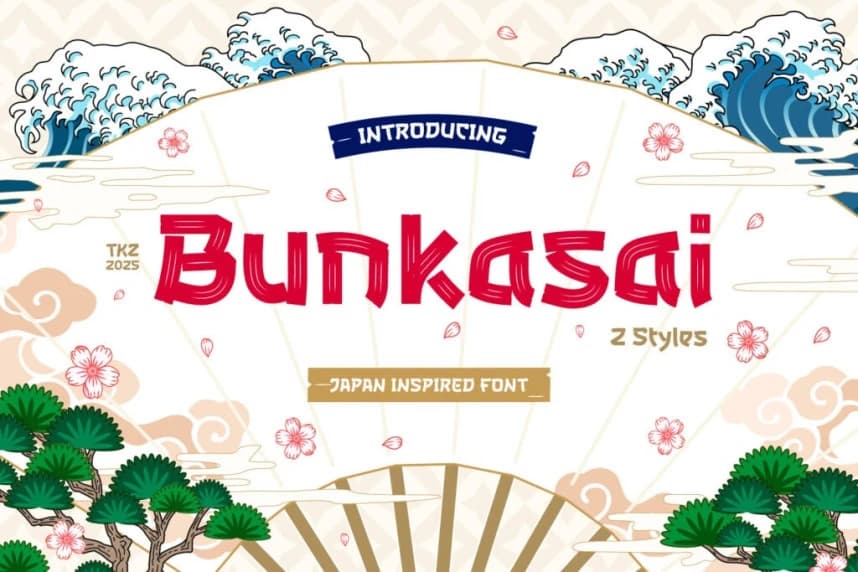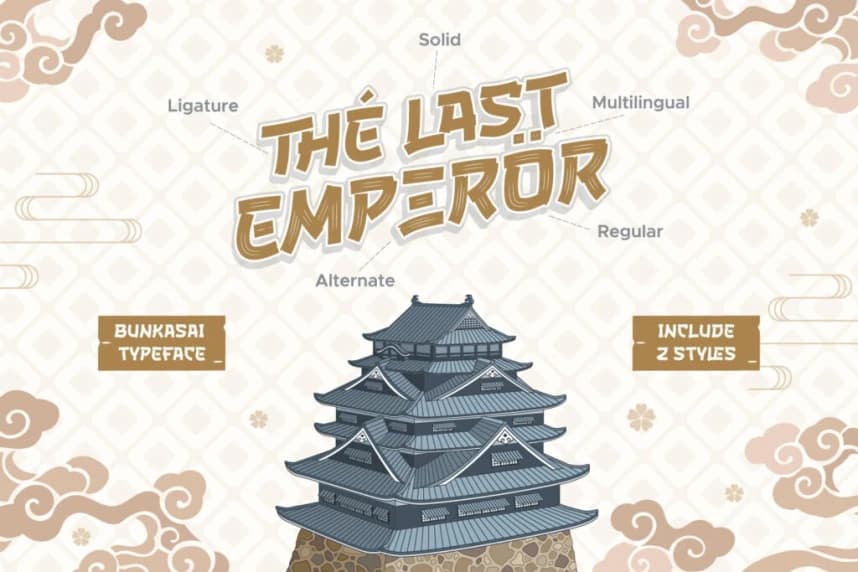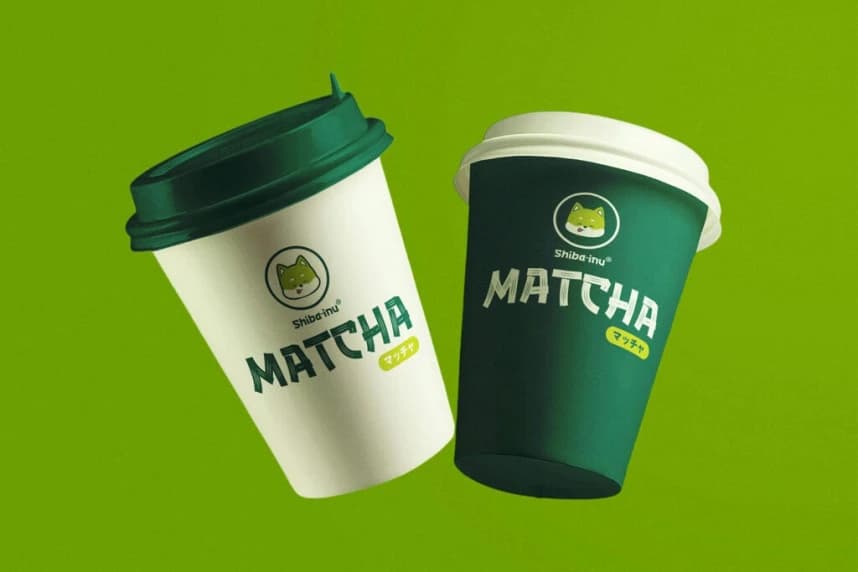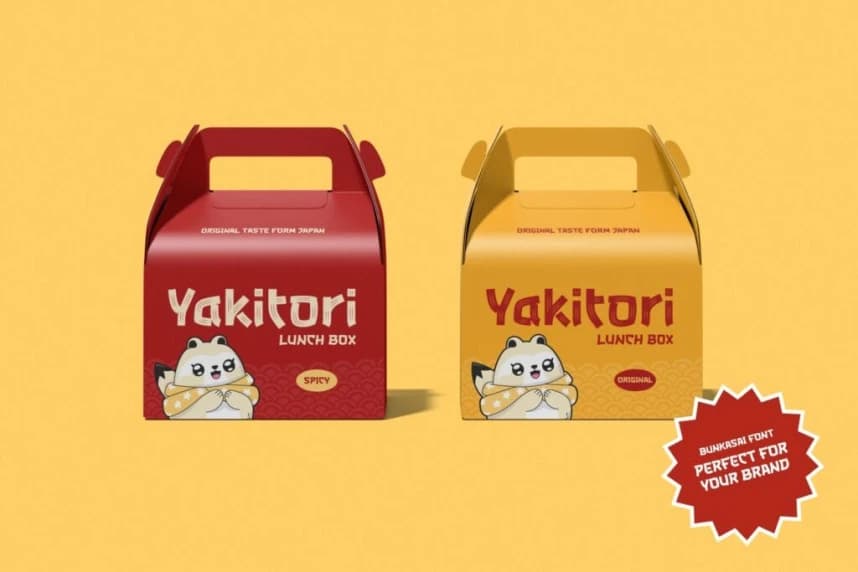
Bunkasai Japan Font
Bunkasai Japan Font is a sleek, Japan-inspired display font featuring a unique bamboo-like brush stroke texture that captures the elegance of Asian design. Its handcrafted style adds a natural and artistic touch, while the included solid version offers a clean and bold alternative for versatile use.